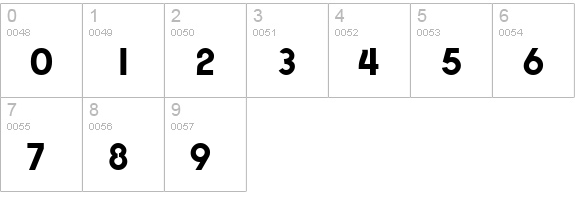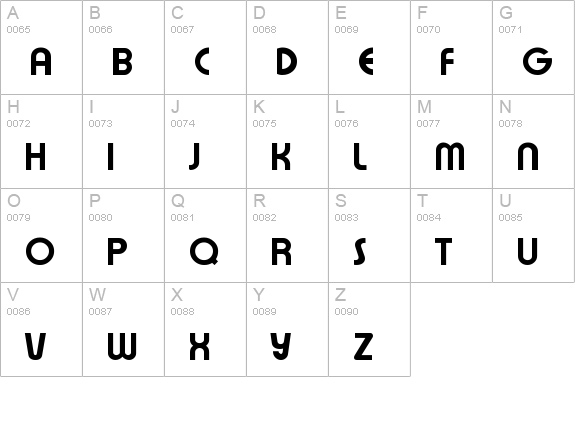
XpressiveExtrabold Regular Font Details
XpressiveExtrabold Regular is the standard, neutral variant in the XpressiveExtrabold typeface family \xE2\x80\x94 well suited to general body text, paragraphs, and standard typographic work.
XpressiveExtrabold Regular font is a stunning display typeface that exudes confidence and style. Its bold and dynamic letterforms make a powerful statement in any design project, whether it's for branding, advertising, or headlines. The font's strong presence commands attention and leaves a lasting impression on viewers. What sets XpressiveExtrabold Regular font apart is its unique blend of modernity and classic elegance. The sharp edges and clean lines give it a contemporary feel, while the bold weight adds a touch of sophistication. This versatile font can be used for a variety of purposes, from posters and brochures to website headers and social media graphics. Best of all, XpressiveExtrabold Regular font is available for free download at FontsMarket.com. This means you can easily access this premium font and use it in your projects without any cost. Don't miss out on the opportunity to enhance your designs with the striking beauty of XpressiveExtrabold Regular font. Download it today and make a bold statement with your typography!